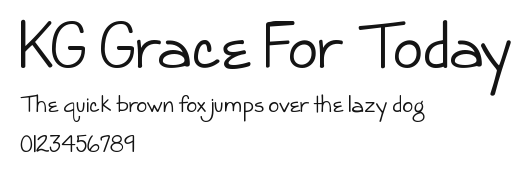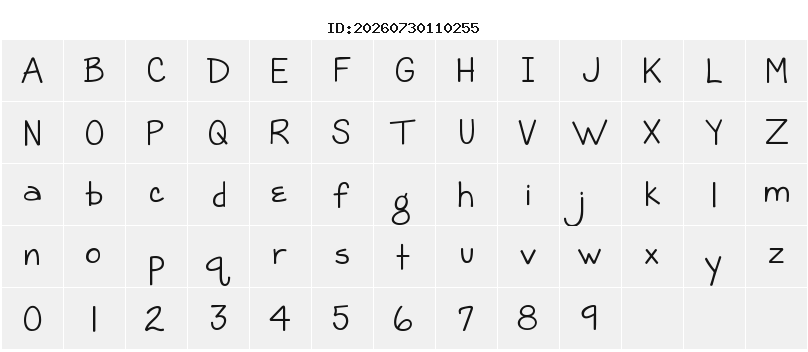
• Font Name: KG Grace For Today
• Designer: Kimberly Geswein
About KG Grace For Today.ttf
KG Grace For Today.ttf is a modern, elegant sans-serif font designed for ultimate readability and visual harmony. Perfect for branding, headlines, web design, and print materials.